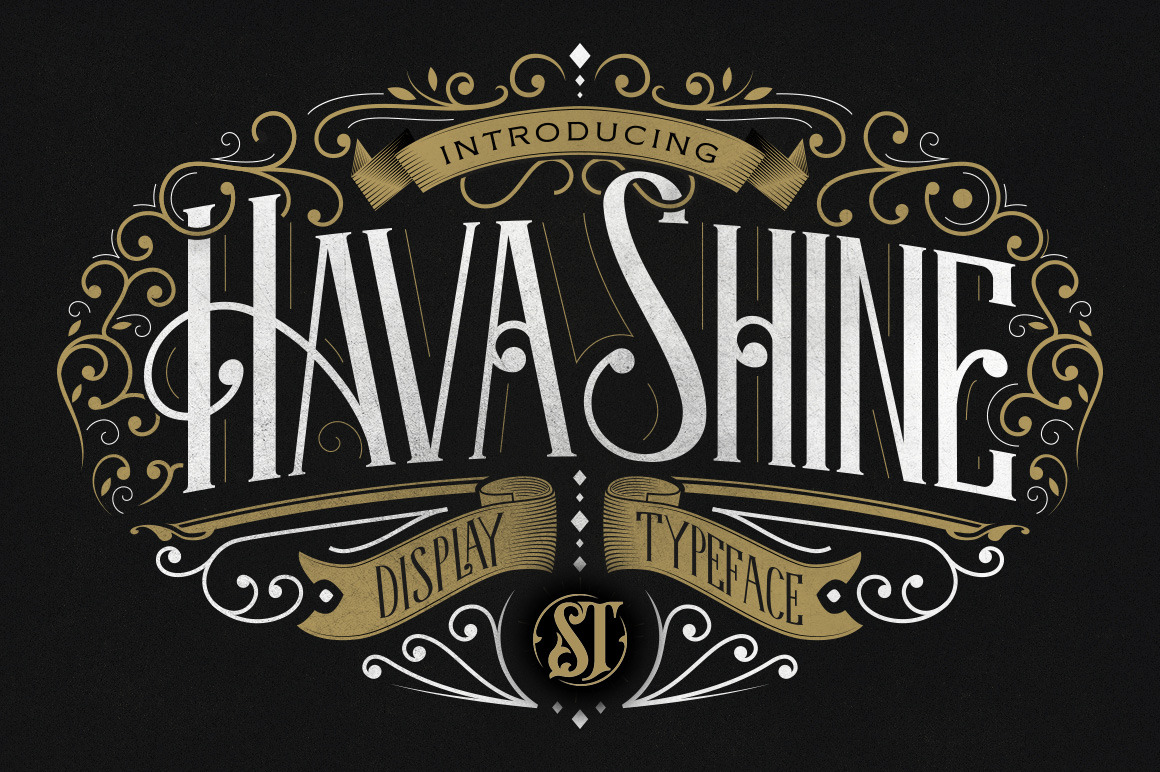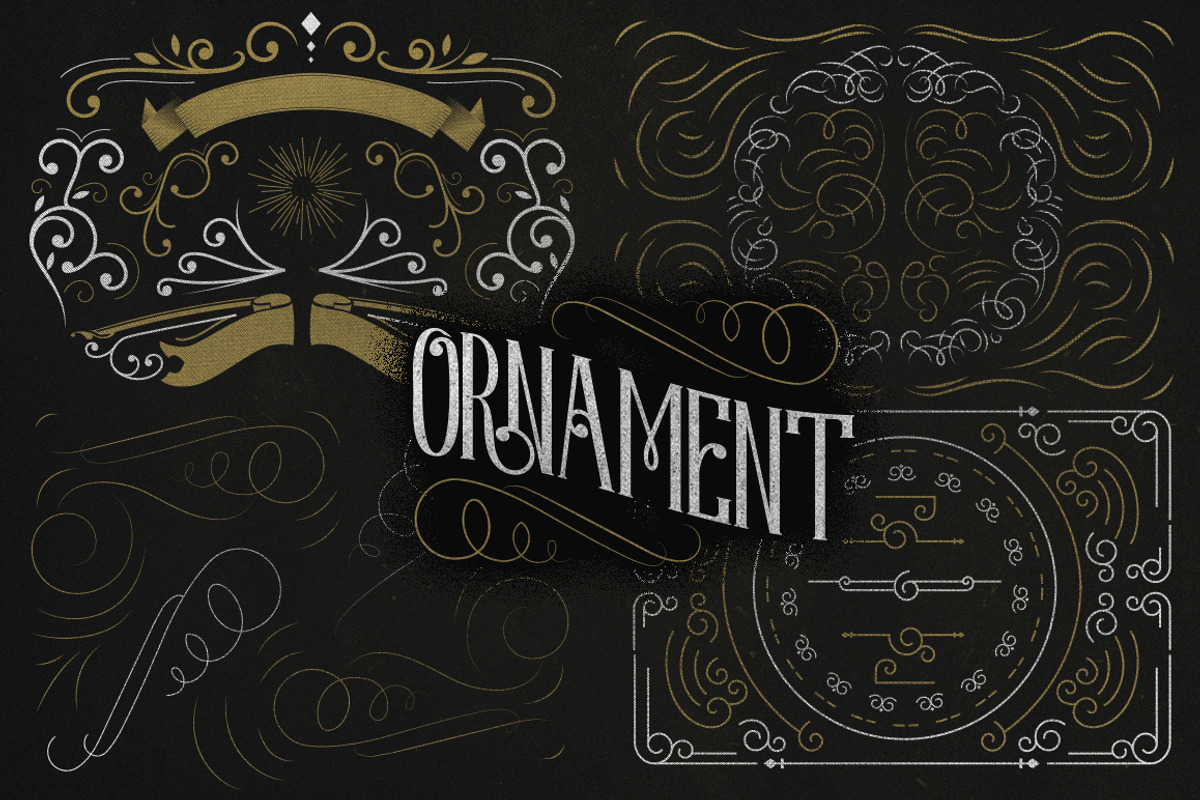
HavaShine Typeface with Extras
[ Update : adding ornament ]
Introducing new classic display typeface its called Hava Shine.
Inspired by gaslight combine victorian style with classic style .OpenType features some characters that allows you to mix and match pairs of letters to fit in your designs.
Open Type featuring
- Discretionary Ligatures